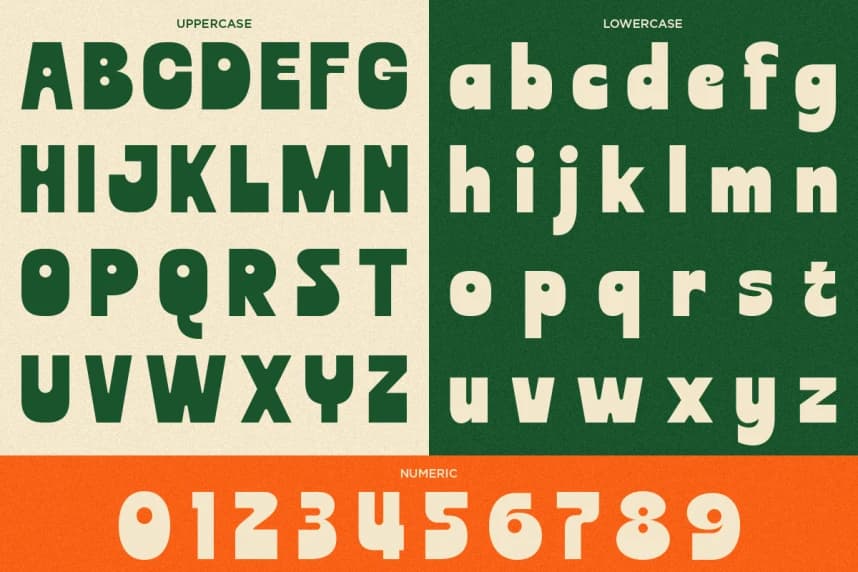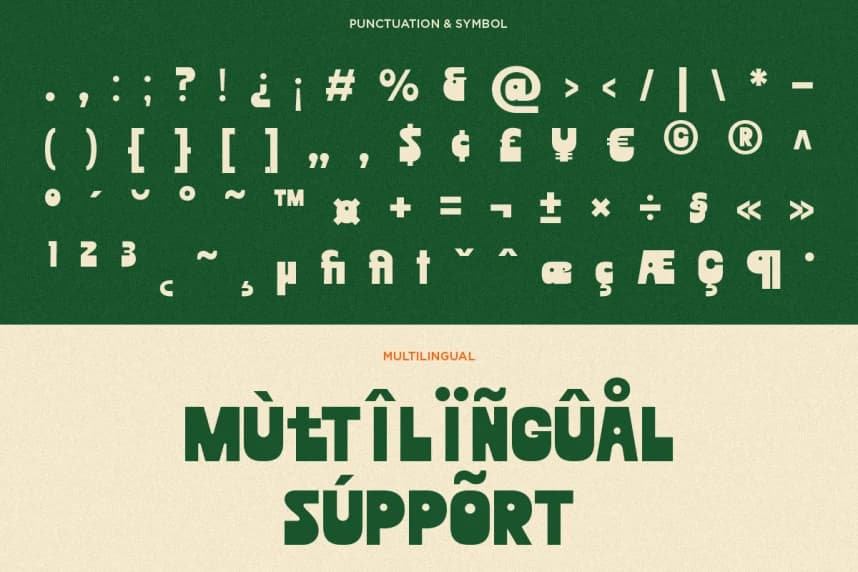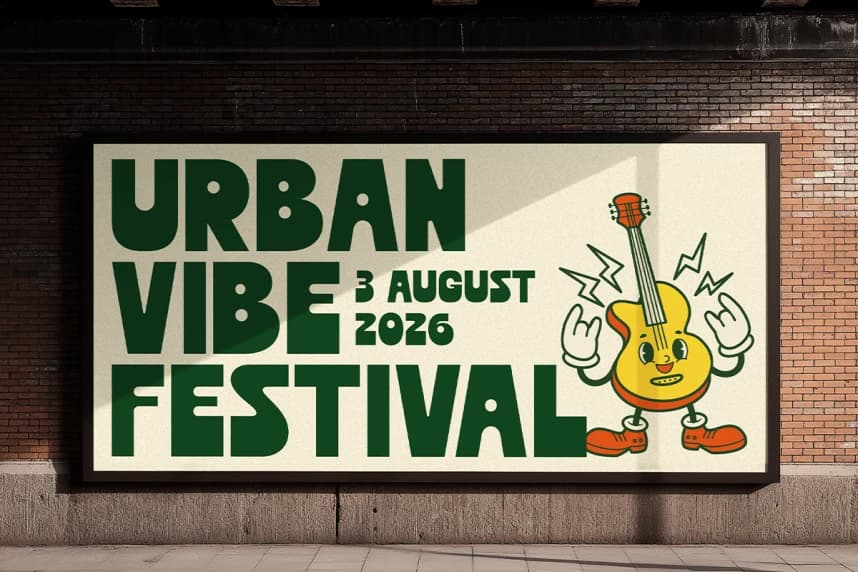
Savero Font
Savero Font is a bold display typeface that brings a playful and energetic personality into modern typography. Built with strong, chunky letterforms and smooth rounded edges, it delivers a powerful visual presence while maintaining a friendly and approachable vibe.